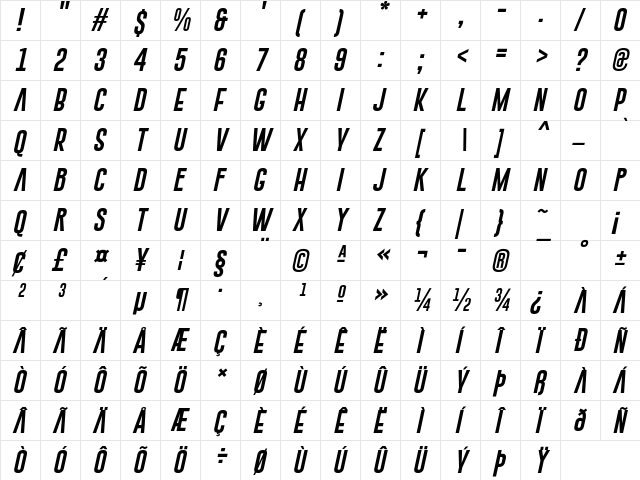
Gobold Extra1 Italic
Design Context for Gobold Extra1 Typeface
Gobold Extra1 is a composed and adaptable typeface that performs quietly and consistently across a wide range of design contexts. The slanted form adds forward momentum and visual energy. The heavy weight commands attention and anchors typographic hierarchies.
Pro Tip: Use Gobold Extra1 for emphasis, pull quotes, and subheadings where its slanted energy can add rhythm to the layout.